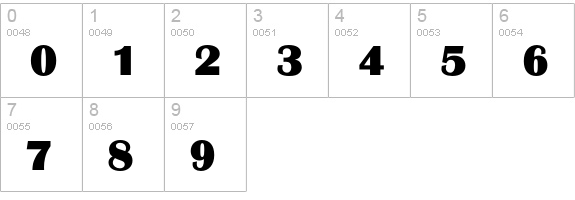
Grenoble-Heavy Font Details
Grenoble-Heavy is a heavy, high-impact variant in the Grenoble typeface family \xE2\x80\x94 well suited to high-impact headlines, posters, and display advertising.
Grenoble-Heavy is a bold and impactful font that exudes strength and confidence. With its thick strokes and sharp edges, this font commands attention and makes a statement in any design project. Whether used for headlines, titles, or logos, Grenoble-Heavy adds a touch of power and sophistication to any visual composition. The best part? Grenoble-Heavy is available for free download at FontsMarket.com. This means that you can easily access this striking font and incorporate it into your projects without any cost. Don't miss out on the opportunity to enhance your designs with the bold elegance of Grenoble-Heavy – download it today and make a lasting impression with your typography.